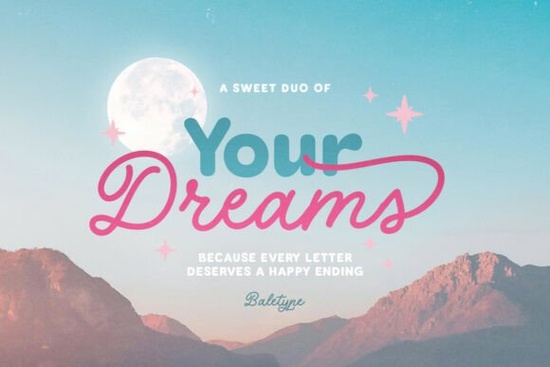
If you're looking for a font that blends playful charm with retro warmth, Your Dreams Font might be just what your next creative project needs. Designed as a soft, friendly duo, it pairs a bold rounded sans-serif with a curly monoline script offering both structure and whimsy in one package. Whether you’re designing wedding invitations, branding a small business, or crafting quote graphics for print-on-demand products, this font brings a gentle, nostalgic feel without looking dated.
What makes Your Dreams Font stand out?
Unlike many script fonts that lean heavily into elegance or formality, Your Dreams keeps things approachable. The sans-serif companion is chunky but not overpowering, with soft curves that echo mid-century design trends. Meanwhile, the script version flows naturally, featuring subtle curls and open letterforms that remain highly legible even at smaller sizes.
One of its best features? Contextual alternates. These are built-in letter variations that automatically swap in depending on surrounding characters, giving your text a more organic, hand-lettered look. You don’t need advanced design skills to use them most modern software (like Adobe Illustrator, Canva Pro, or Affinity Designer) supports OpenType features that activate these alternates by default.
Who should use this font?
Your Dreams works beautifully for creators who want personality without clutter:
- Small business owners creating logos, packaging, or social media graphics that feel personal and inviting.
- Print-on-demand sellers designing mugs, T-shirts, or wall art with motivational quotes or lighthearted messages.
- Wedding stationery designers seeking a script that’s romantic but not overly ornate ideal for save-the-dates or thank-you cards.
- Crafters and hobbyists making DIY decor, scrapbook elements, or digital stickers with a cozy, handmade vibe.
If you enjoy fonts like Smoothie Delights or Wonderful Handmade, you’ll likely appreciate the same cheerful energy in Your Dreams but with a slightly more structured, retro twist.
How does it compare to other script fonts?
Many monoline scripts can feel either too stiff or too chaotic. Your Dreams strikes a balance: the letters connect smoothly, but spacing remains generous, preventing visual crowding. It also avoids excessive swashes, which makes it more versatile for everyday use.
For example, if you’re used to cleaner signature styles like those in our signature font collection, you might find Your Dreams offers a fun departure still readable, but with more bounce and character. And unlike ultra-thin scripts that disappear on textured backgrounds, the bold weight of the sans-serif ensures strong contrast in layered designs.
Tips for using Your Dreams effectively
To get the most out of this duo, try these practical approaches:
- Mix the two styles intentionally. Use the rounded sans for headlines or names, and the script for supporting phrases (“Emily & James” in sans, “forever begins” in script).
- Adjust tracking slightly. The script benefits from a tiny bit of extra letter spacing (around 20–50 units) to let those curls breathe.
- Pair with simple neutrals. Cream, sage green, or warm terracotta backgrounds enhance its retro charm without competing.
- Avoid all-caps in the script. It’s designed for lowercase flow; uppercase letters are included but work best as initials or accents.
And remember you don’t need to use both fonts together. Sometimes the script alone adds enough flair for a greeting card, while the sans-serif stands strong on its own for product labels or app icons.
Ready to try it?
If you’ve been searching for a font that feels both nostalgic and fresh something that says “handmade with care” without looking messy Your Dreams Font is worth a closer look. It’s especially handy if you create content regularly and need a reliable go-to that adapts across projects.
- Do I need a font that’s legible at small sizes (like for tags or labels)? → Yes, the sans-serif excels here.
- Do I want automatic stylistic variety without manual glyph hunting? → Yes, thanks to its alternates.
- Am I working on something joyful, personal, or sentimental? → Perfect match.
If most answers are “yes,” this duo could become a staple in your creative toolkit.